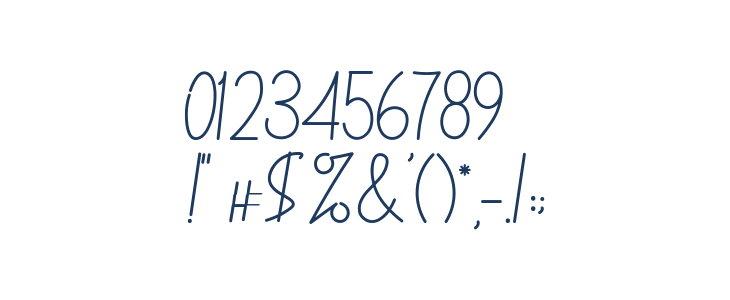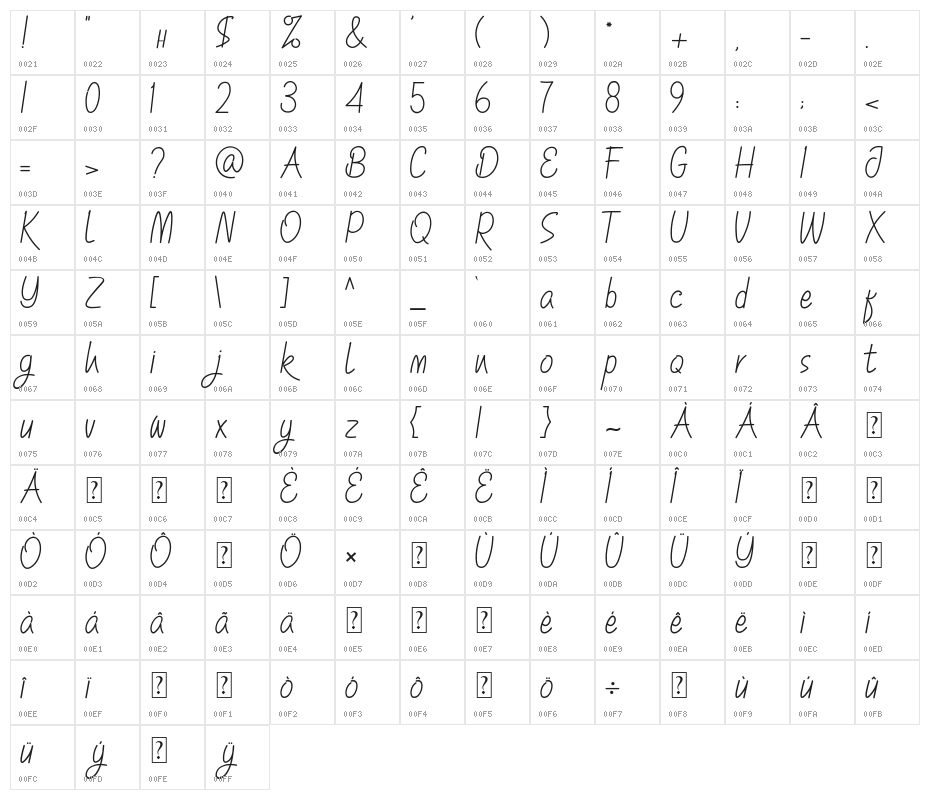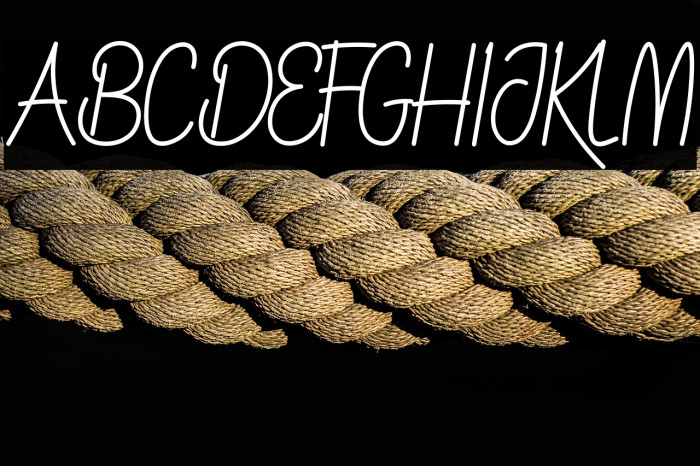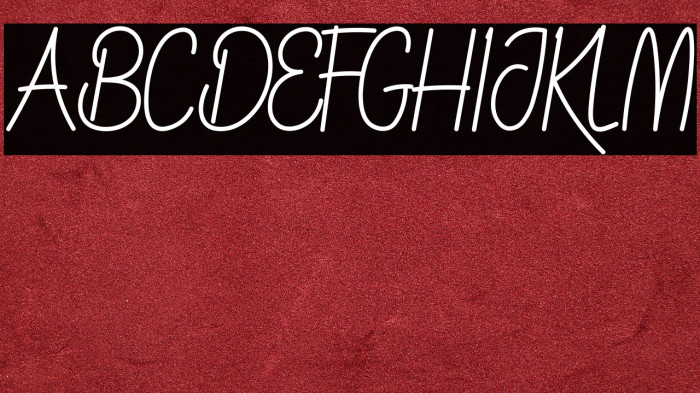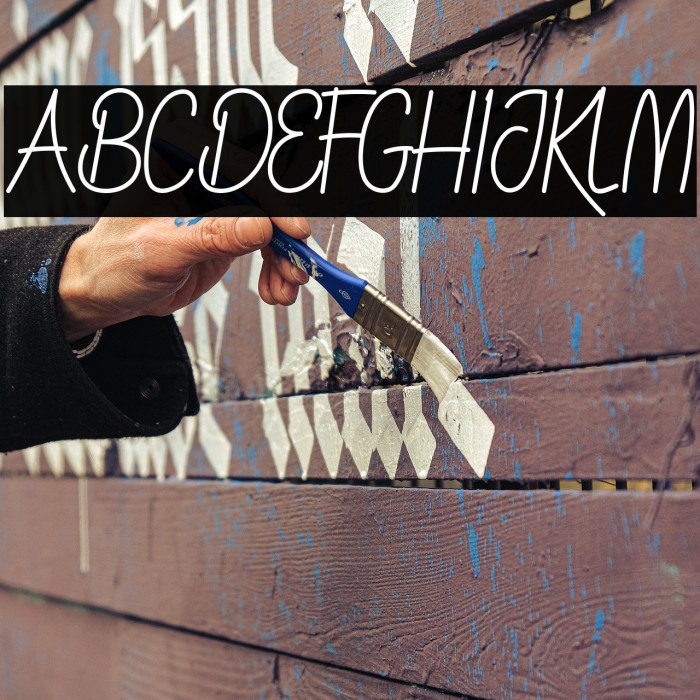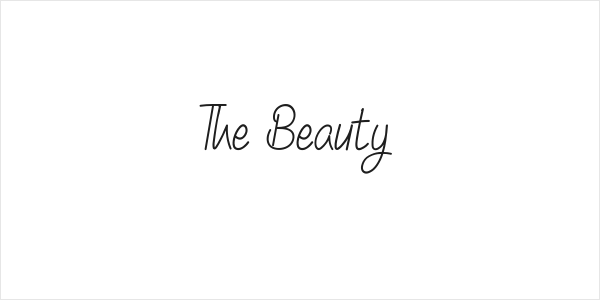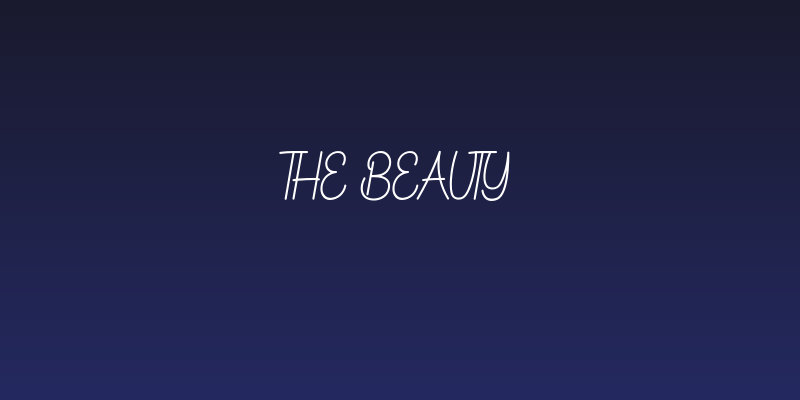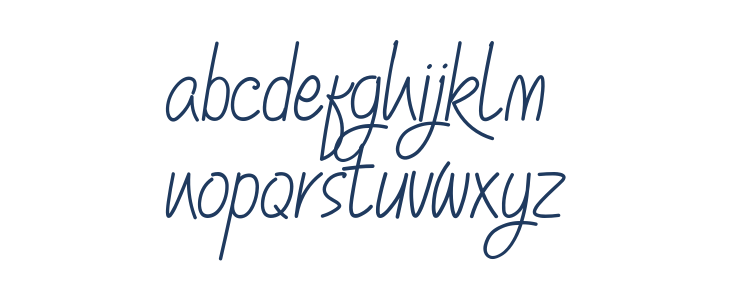
The Beauty Font
The Beauty Description
This font features a flowing, handwritten style with a modern twist. The letters are elongated and slightly slanted, giving it an elegant and casual appearance. The uppercase letters are tall and narrow, while the lowercase letters maintain a consistent height, creating a harmonious balance. The numbers are designed with the same fluidity, ensuring readability. Special characters are integrated seamlessly, maintaining the overall aesthetic. The strokes are consistent in thickness, providing a clean and cohesive look.
Use CaseLogos, Invitations, Artistic projects
Proposed ProjectsIdeal for wedding invitations, personal branding, greeting cards, and artistic projects where a personal touch is desired.